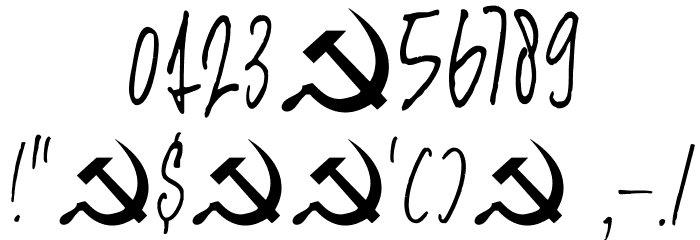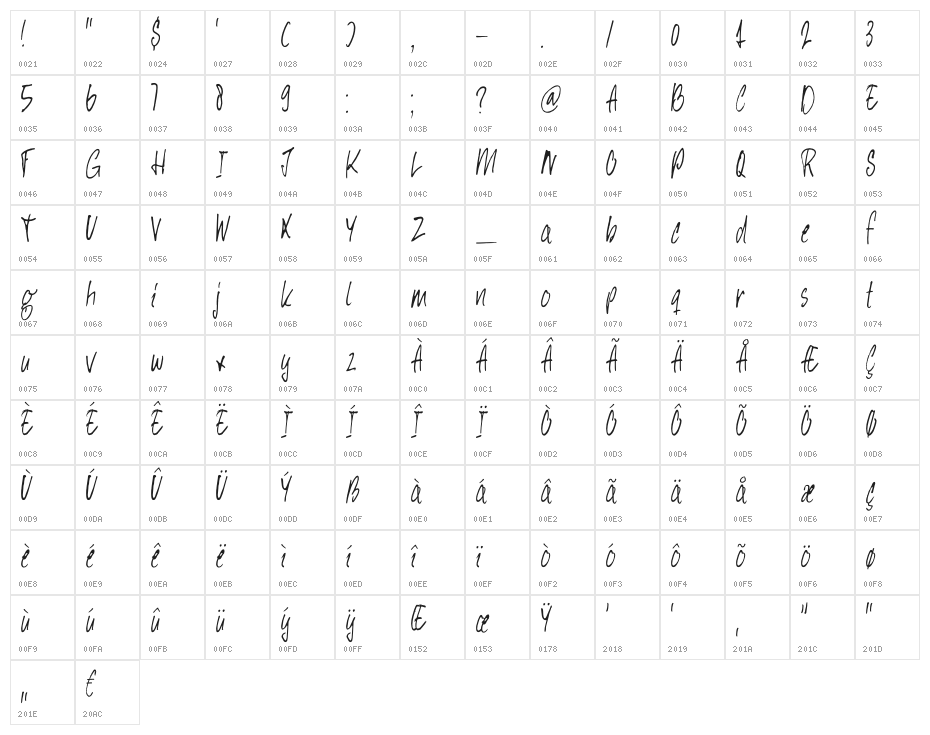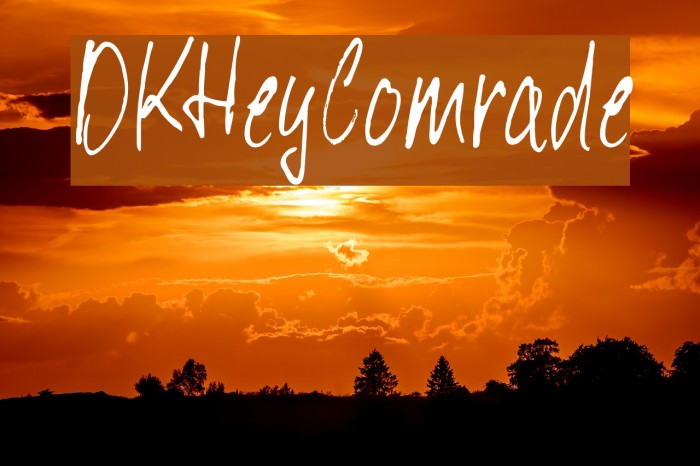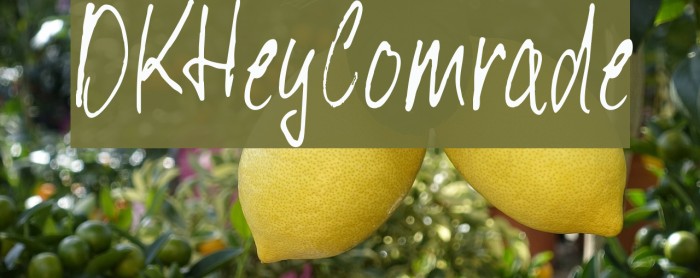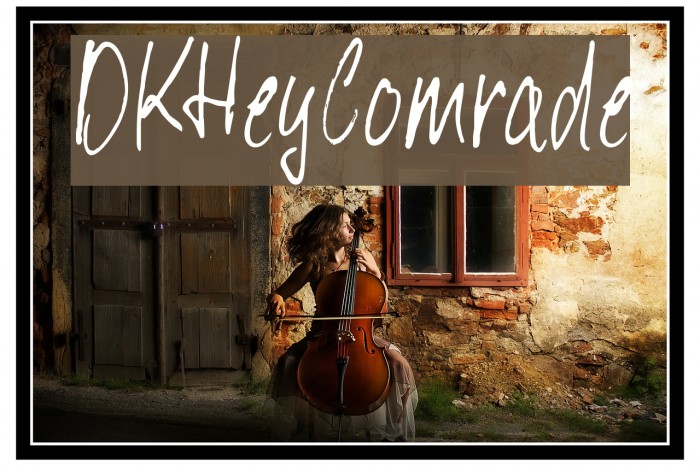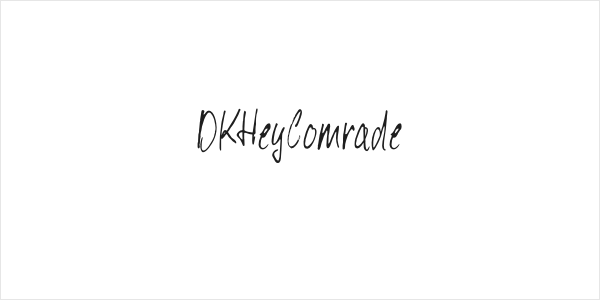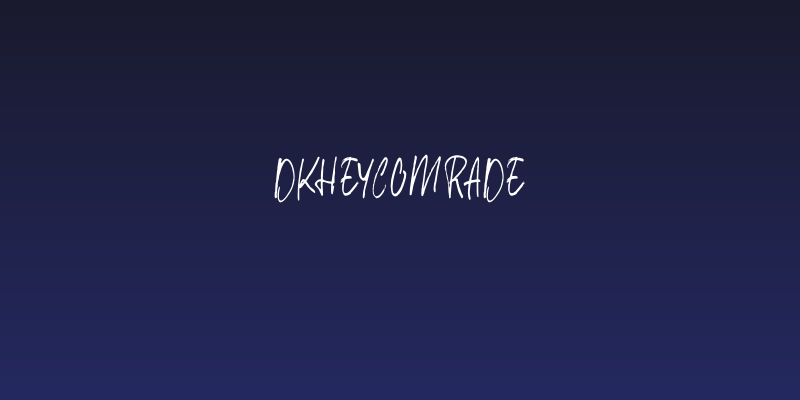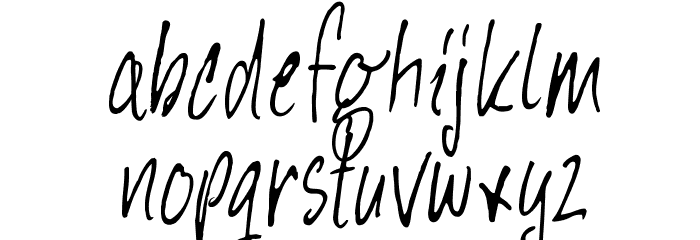
DKHeyComrade Font
DKHeyComrade Description
This font exhibits a bold, handwritten style with a dynamic and energetic flow. The uppercase letters are tall and slightly slanted, giving a sense of movement and urgency. The lowercase letters maintain the same lively character, with some letters featuring unique loops and curves that add to the font's distinct personality. Numbers are consistent with the overall style, maintaining the same boldness and flair. Special characters, including symbols like the hammer and sickle, are integrated seamlessly, adding a thematic element to the font. The overall appearance is striking and memorable, making it suitable for projects that require a strong visual impact.
| Proposed Projects | Ideal for posters, branding, and any design work that requires a bold statement or a thematic touch. |